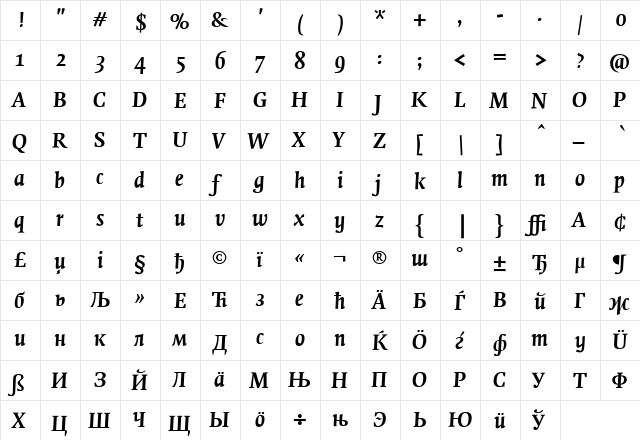
QuadraatCyrG Bold Italic Font Preview
QuadraatCyrG Bold Italic
Design Context for QuadraatCyrG Typeface
QuadraatCyrG offers clean, dependable letterforms without strong stylistic allegiance, making it a practical choice for designers who need flexibility. Its italic angle brings a sense of urgency and motion to the letterforms. The heavy weight commands attention and anchors typographic hierarchies.